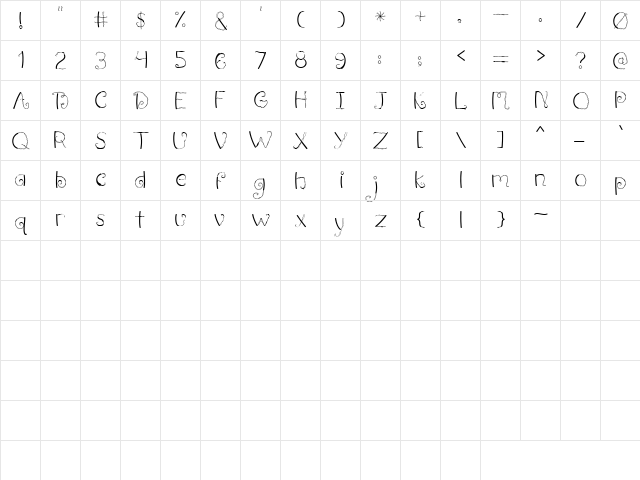
CK Frayed Regular Font Preview
CK Frayed Regular
Design Context for CK Frayed Typeface
CK Frayed is a composed and adaptable typeface that performs quietly and consistently across a wide range of design contexts.